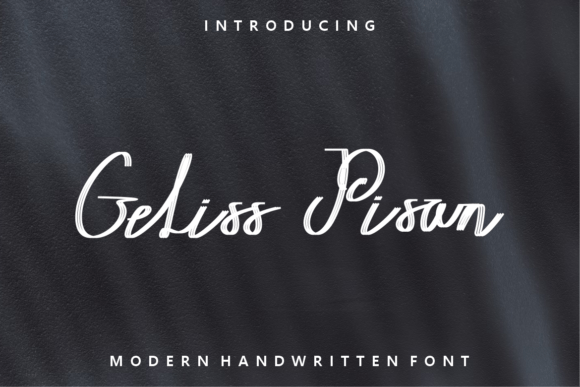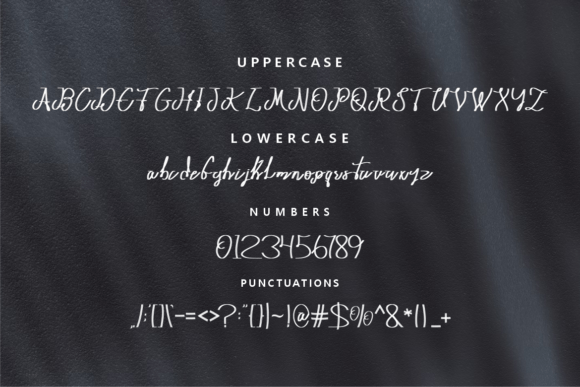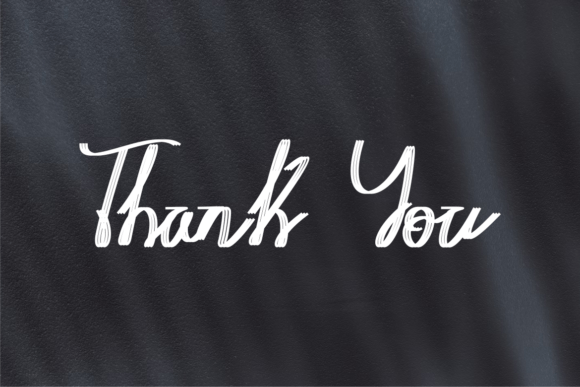
Kainar Agan Font
About Kainar Agan Font
“Kainar Agan” is a modern and cool handwritten font that offers a contemporary and versatile style. This font is designed to be your go-to choice for a wide range of design projects, making it suitable for various occasions and applications.
The font’s modern and cool design is characterized by its clean and legible characters. It has a straightforward and approachable look, making it adaptable to different design contexts. Whether you’re working on digital design, presentations, greeting cards, branding, or any creative project, “Kainar Agan” provides a reliable and stylish option.
In the world of design, fonts play a pivotal role in shaping the visual identity and tone of a project. “Kainar Agan” excels in these aspects by offering a font that combines modernity with readability. Its versatility allows you to use it confidently across a wide range of design applications.
In summary, “Kainar Agan” is a font that brings a modern and cool vibe to your design projects, making them visually appealing and adaptable to various occasions. Whether you’re creating digital content, print materials, or any project that requires a contemporary style, “Kainar Agan” is the font that can help you achieve a stylish and professional look.